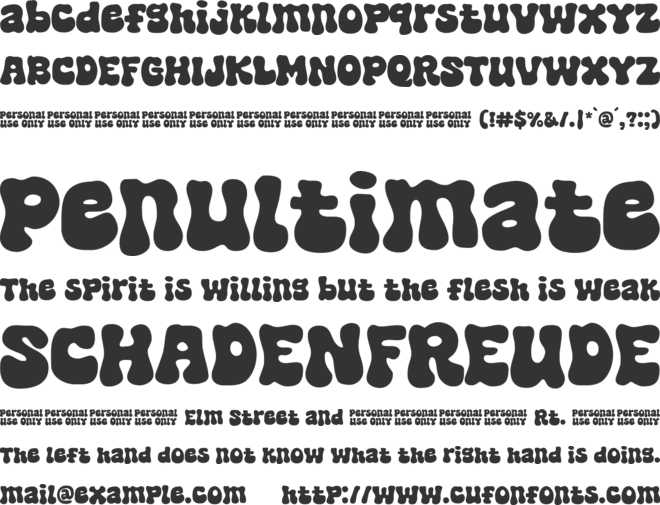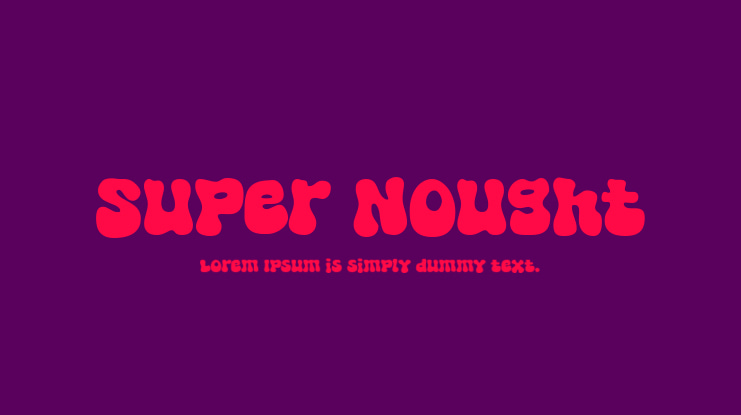
Super Nought Font
This font is for PERSONAL USE ONLY!.If you want to use this font for commercial purposes, you will need to purchase a commercial license. You can purchase a commercial license at https://singlelinestd.com/product/super-nought/Super Nought is a bold, playful font that is perfect for headlines, logos, and other creative projects. It is a versatile font that can be used for a variety of purposes, from serious to fun.For questions, please visit https://singlelinestd.com/contact/